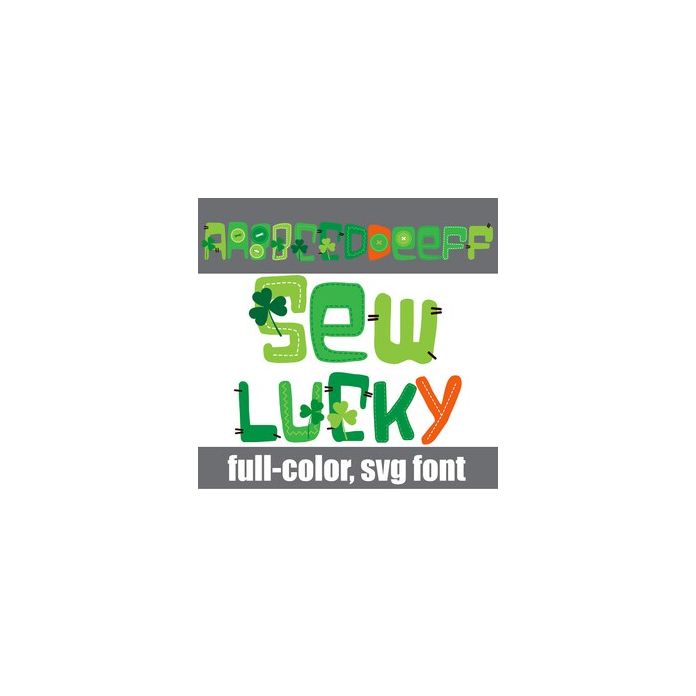
This cute, hand-crafted font is in a green color palette and features stitches and buttons. There is an alt case w/ additional colors you can access through your system or Silhouette's glyph map.